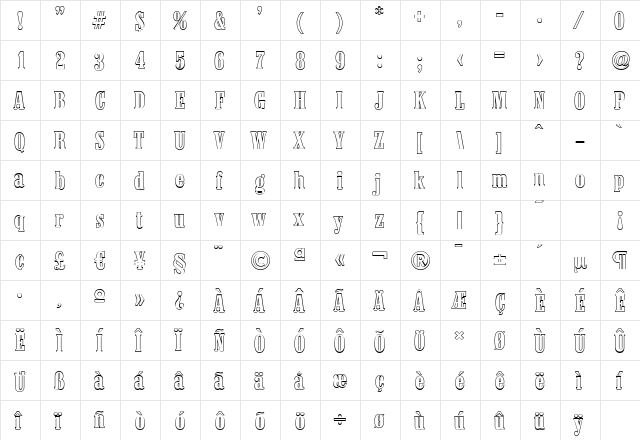
ColonelOutline Bold
Design Context for ColonelOutline Typeface
ColonelOutline is built around its visual character rather than neutral utility — its distinctive forms are designed to make an impression at display sizes. Its bold stroke weight gives it real presence on the page.
Font Pairing: Pair with a clean neutral sans-serif for body copy to let ColonelOutline's character lead without overwhelming the composition.
Pro Tip: Use ColonelOutline exclusively at display sizes — it was designed to be seen, not read at length. Let a neutral companion handle body copy.